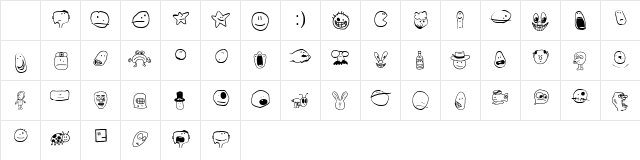
Tombats Smilies Regular Free Font
Tombats Smilies Regular
Design Context for Tombats Smilies
Tombats Smilies is a composed and adaptable typeface that performs quietly and consistently across a wide range of design contexts.